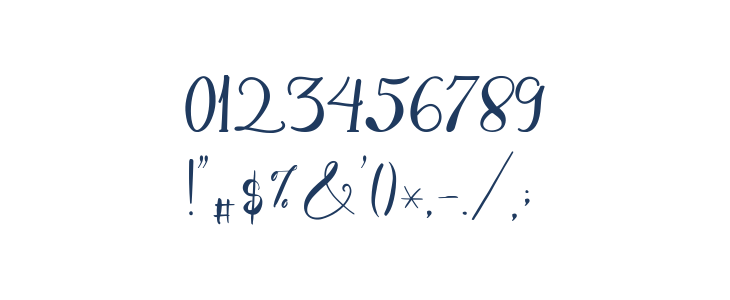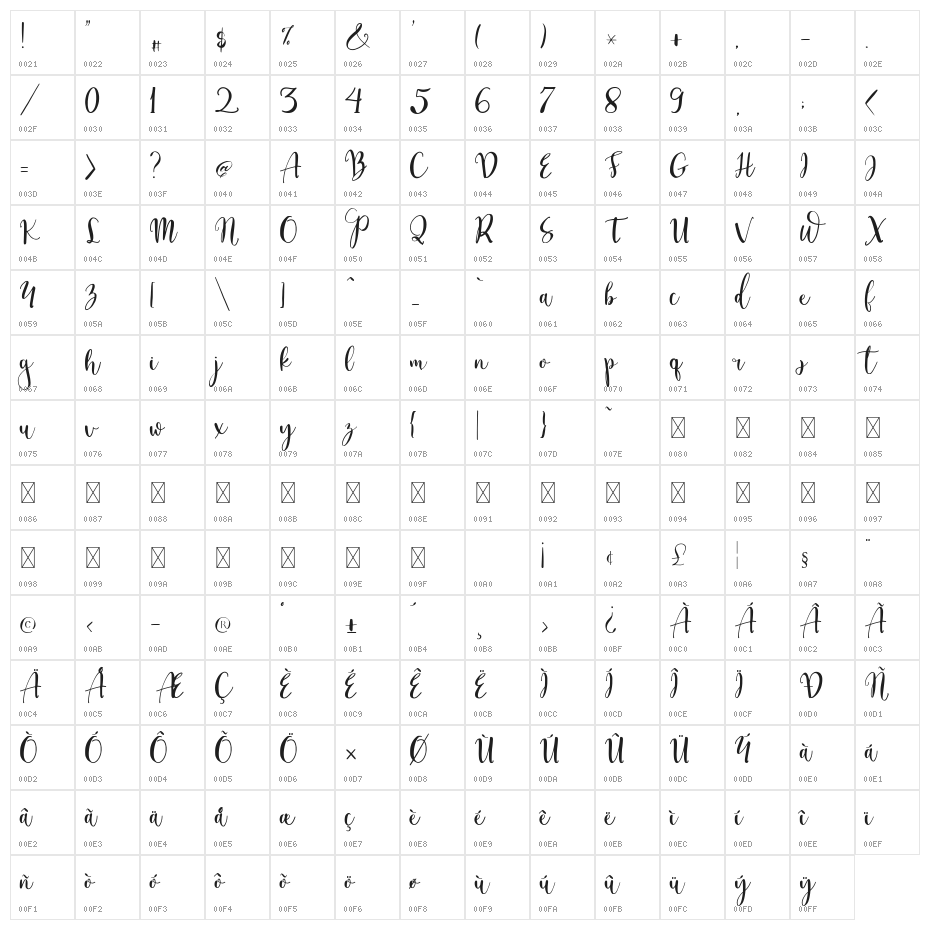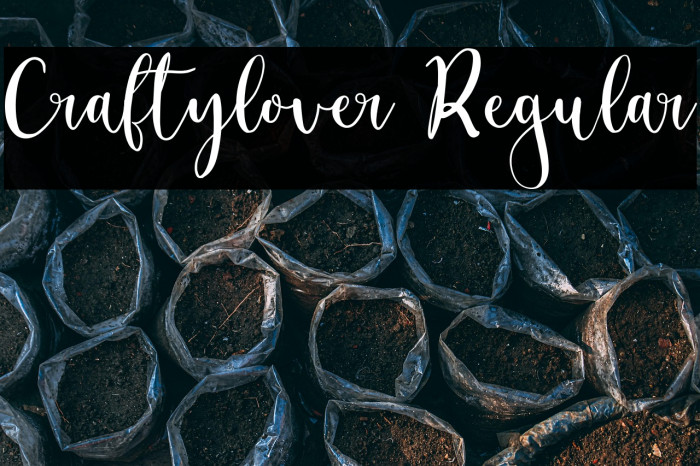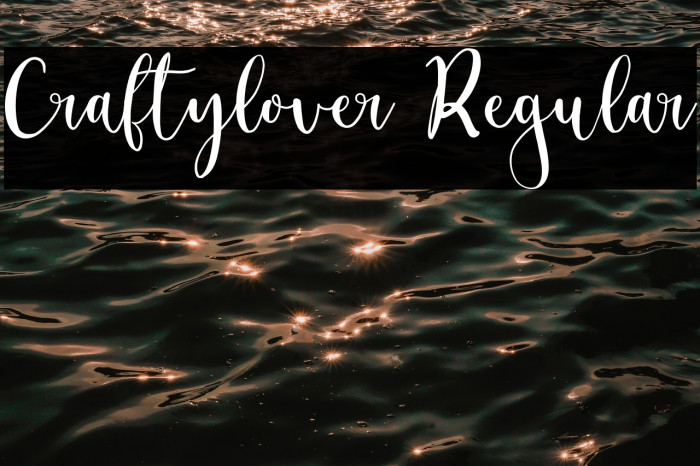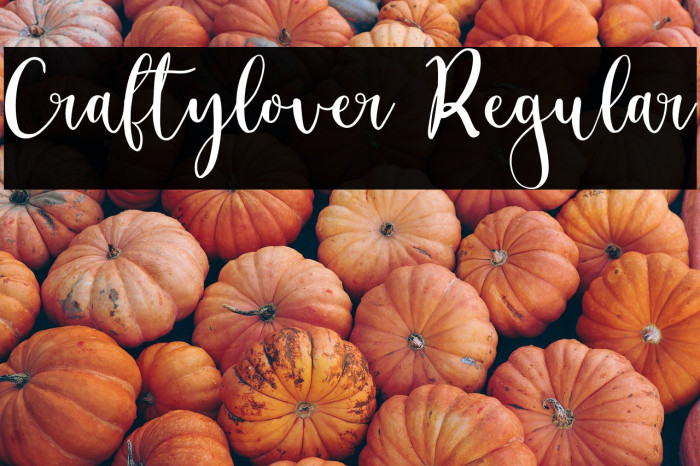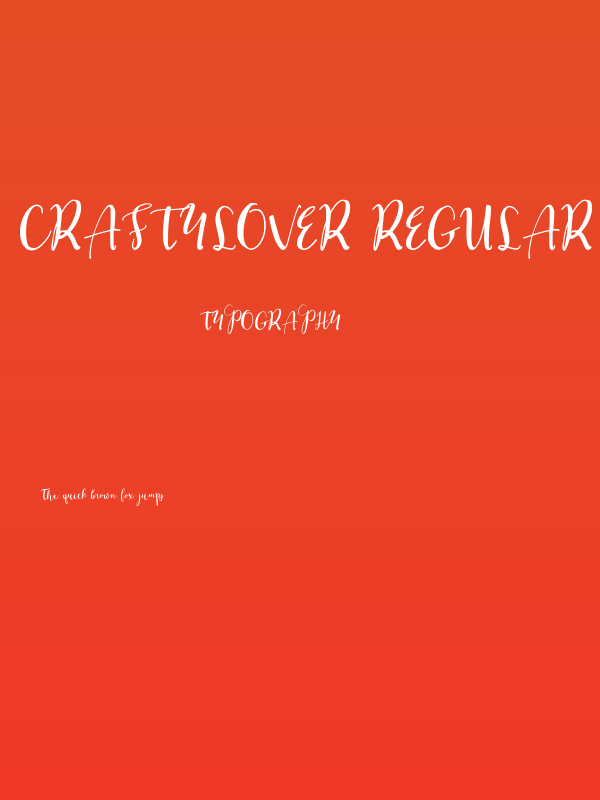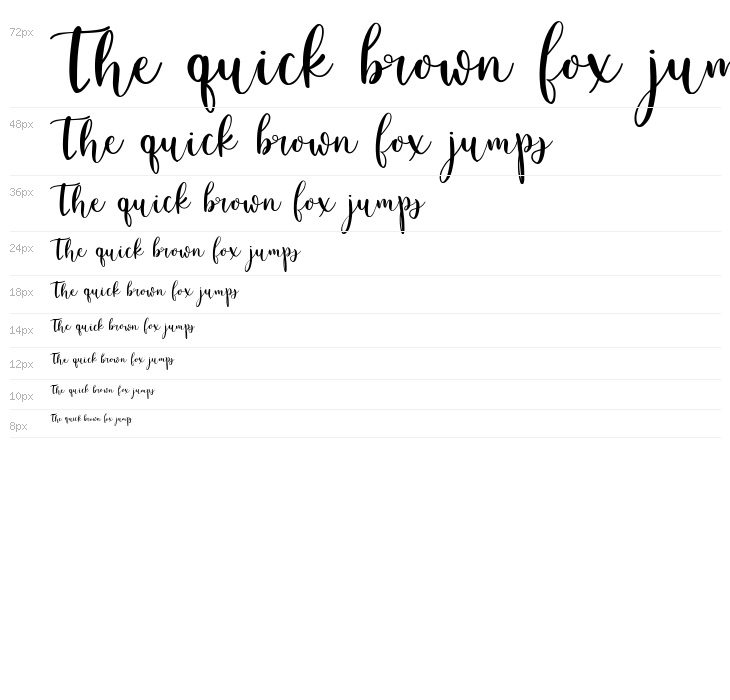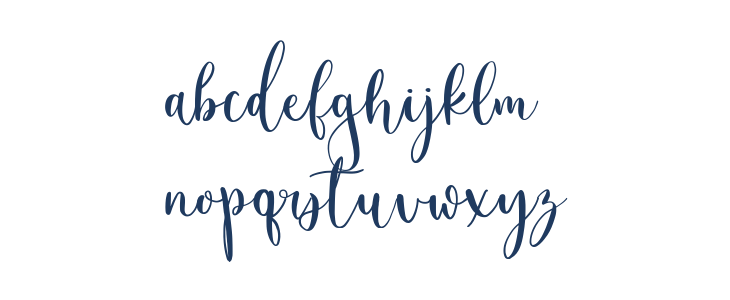
Craftylover Regular Font
Craftylover Regular Description
This font exudes a playful and artistic flair, characterized by its flowing, cursive style that mimics the fluidity of hand-drawn script. The letters are elegantly connected, with varying stroke widths that add a dynamic and lively feel. The uppercase letters are bold and prominent, while the lowercase letters maintain a graceful, sweeping form. Numbers and special characters are crafted with the same attention to detail, ensuring a cohesive look throughout. This font is perfect for projects that require a personal touch, such as invitations, greeting cards, or creative branding.